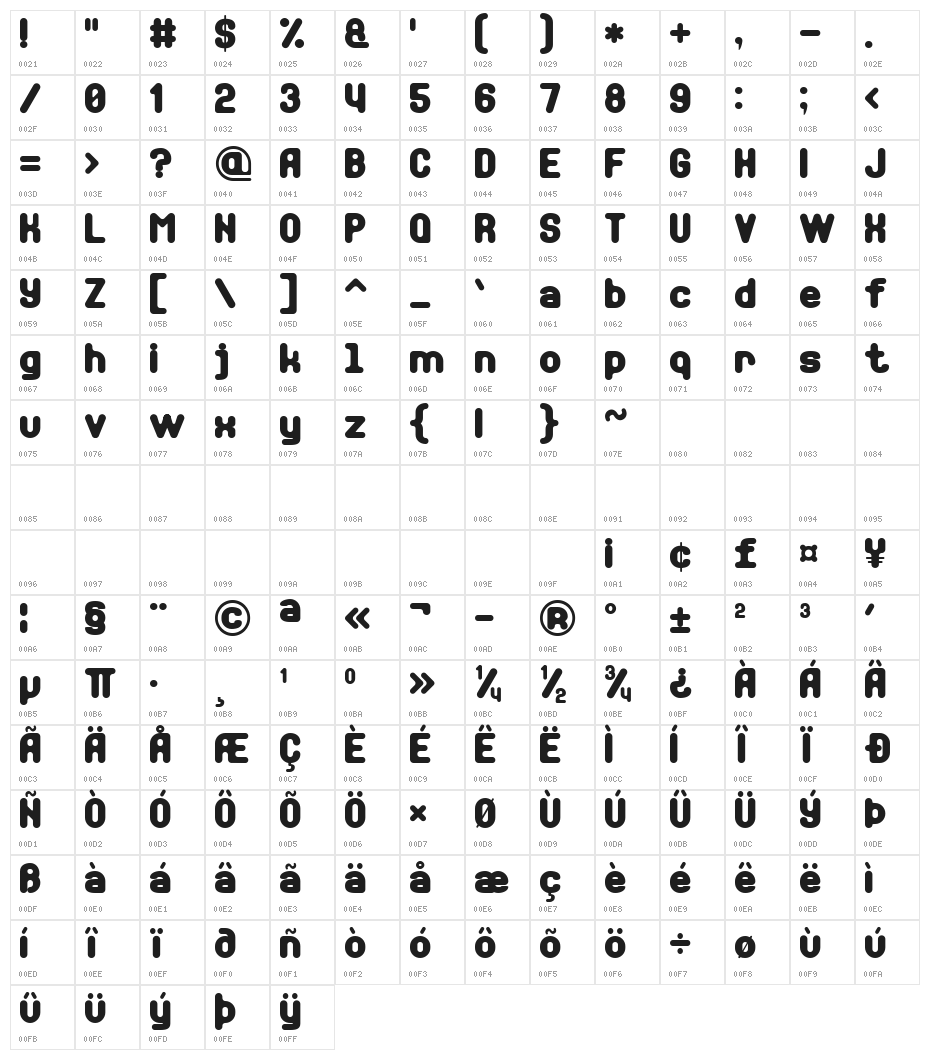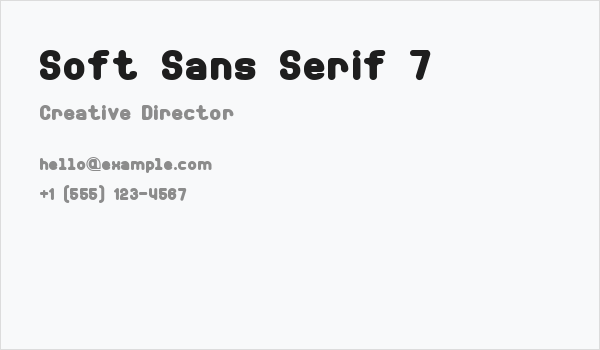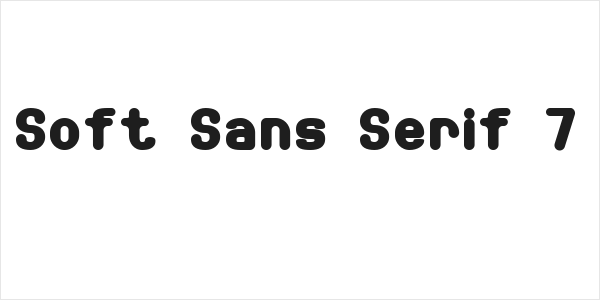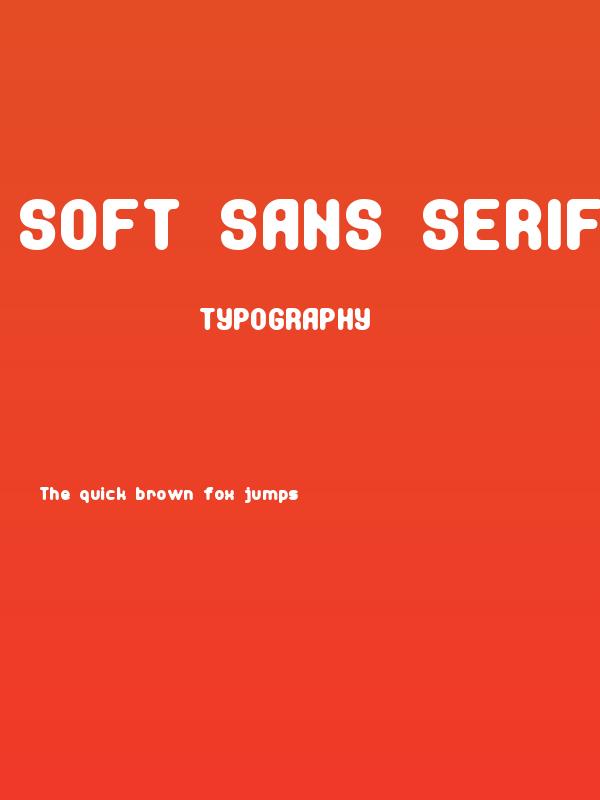
Soft Sans Serif 7 Font
Soft Sans Serif 7 Description
This font features a playful and rounded design, characterized by its soft, sans-serif style. The letters are bold and have a uniform thickness, giving them a strong presence on the page. The rounded edges and smooth curves create a friendly and approachable appearance. The numbers and special characters maintain the same rounded and bold aesthetic, ensuring consistency throughout. This font is highly legible and draws attention with its unique style, making it suitable for various creative applications.
| Proposed Projects | Ideal for children's books, playful branding, posters, and social media graphics. |